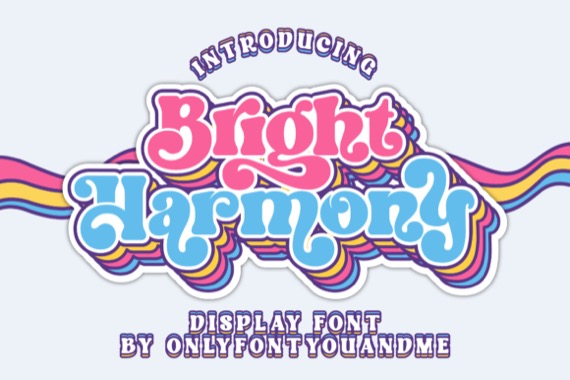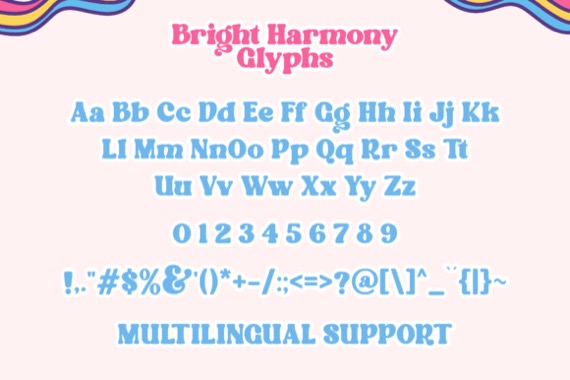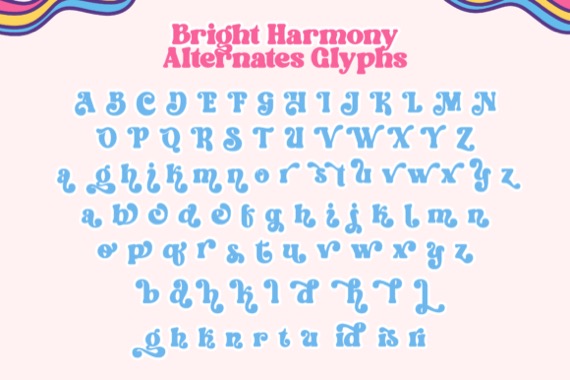
Bright Harmony Retro Groovy is a cute and fun display font. This font is PUA encoded which means you can access all of the glyphs and alternates with ease! It will look great on Sticker, T Shirt, Mug and so much more!
Bright Harmony Display Font
Designer, Publisher: Only Font You and Me